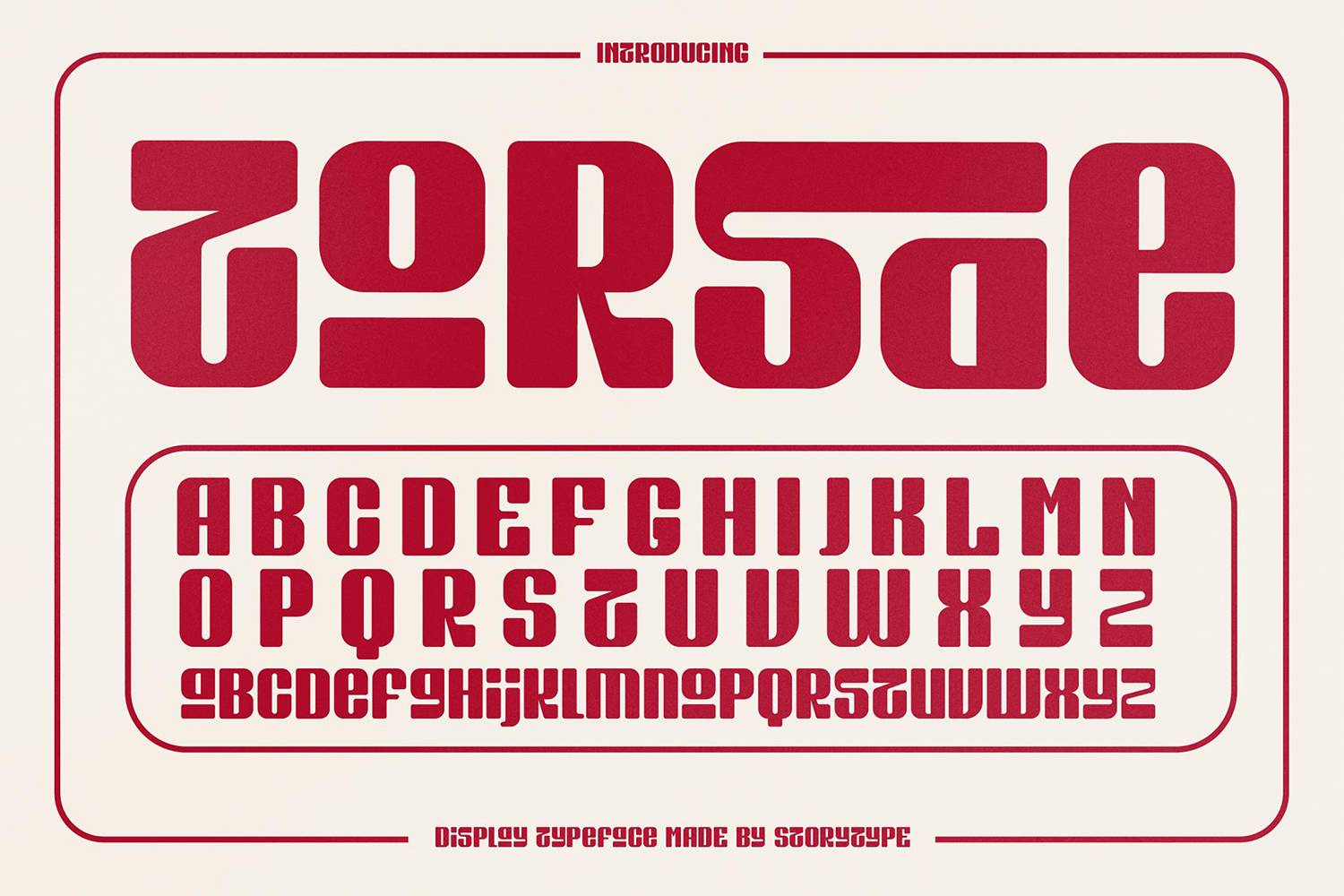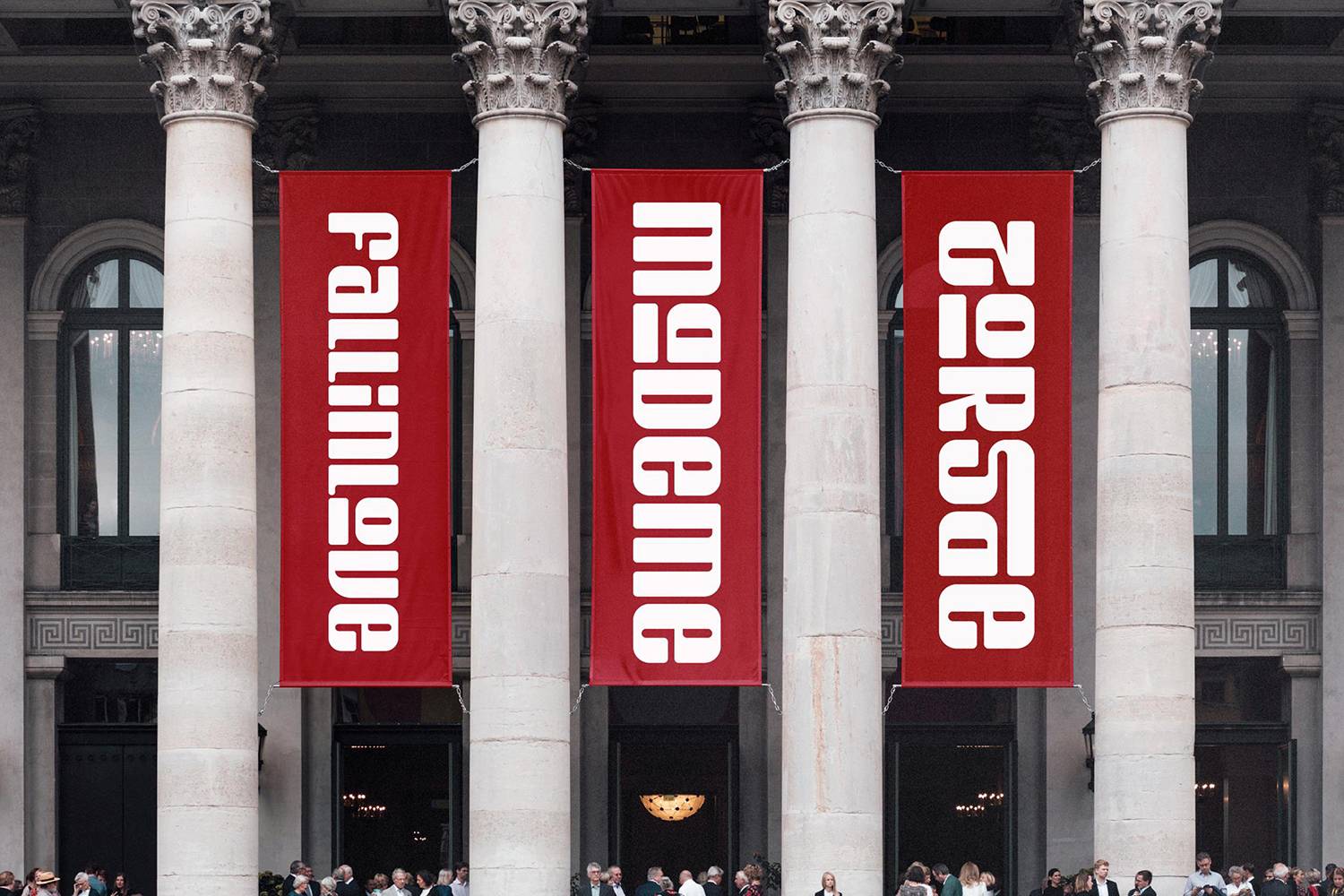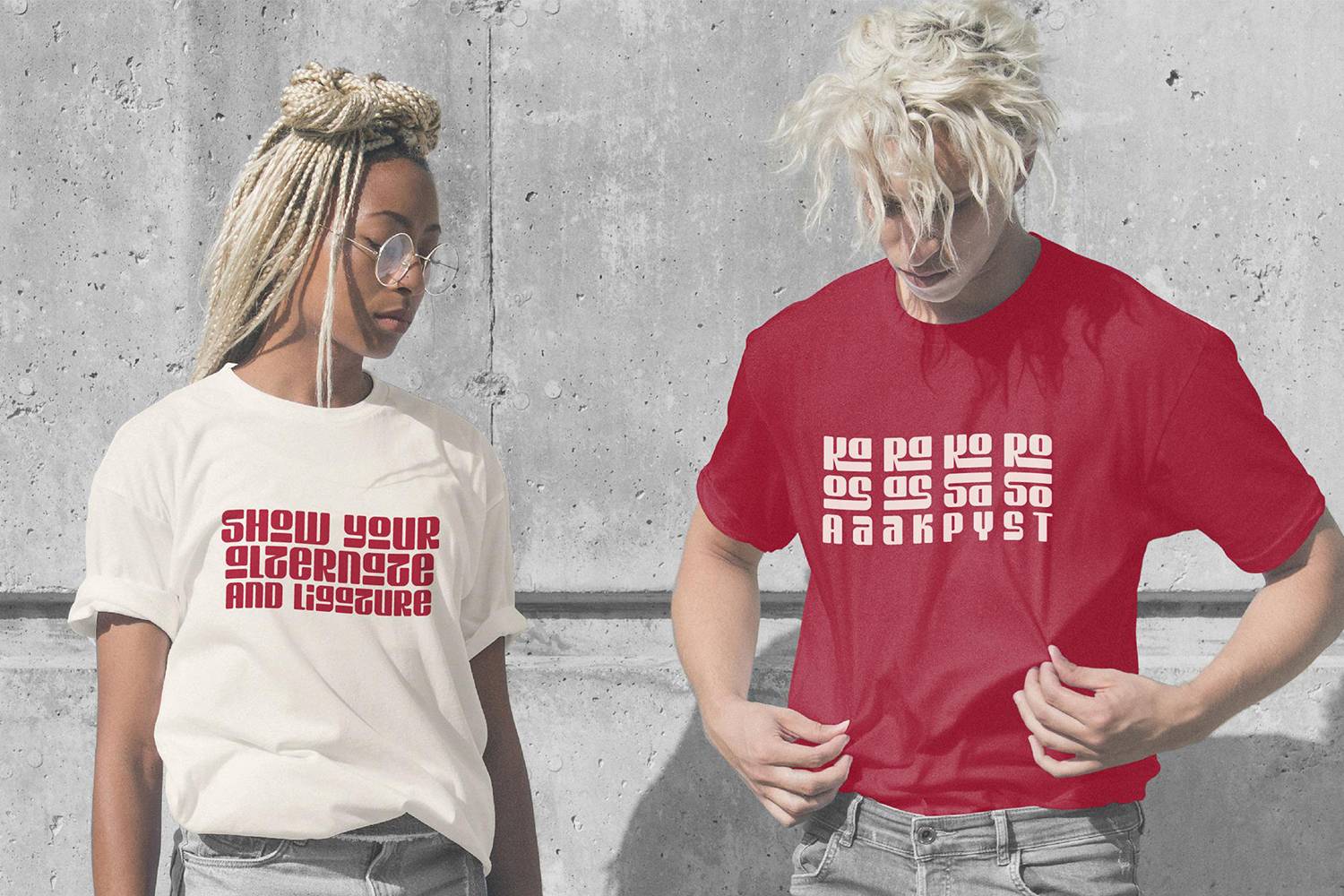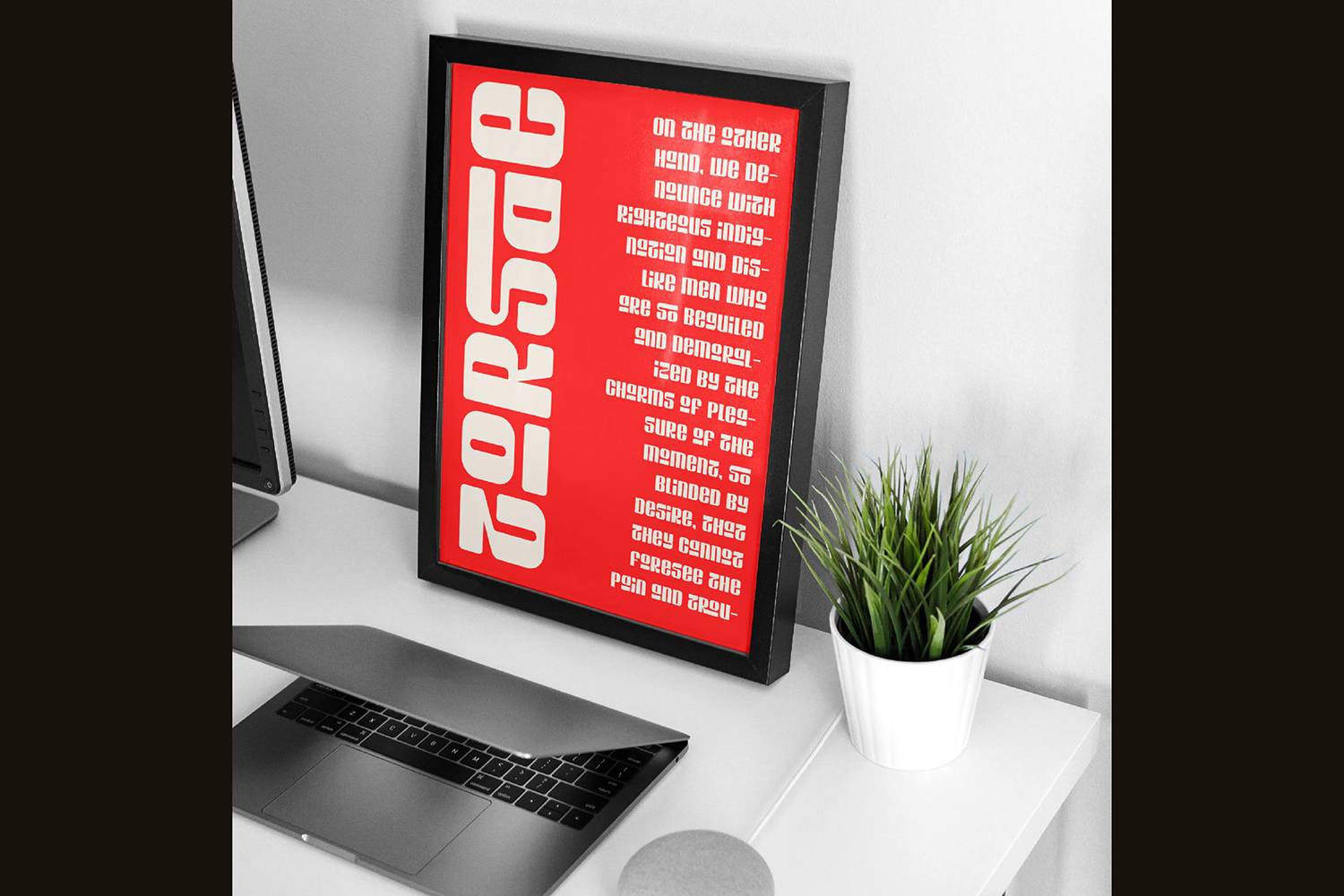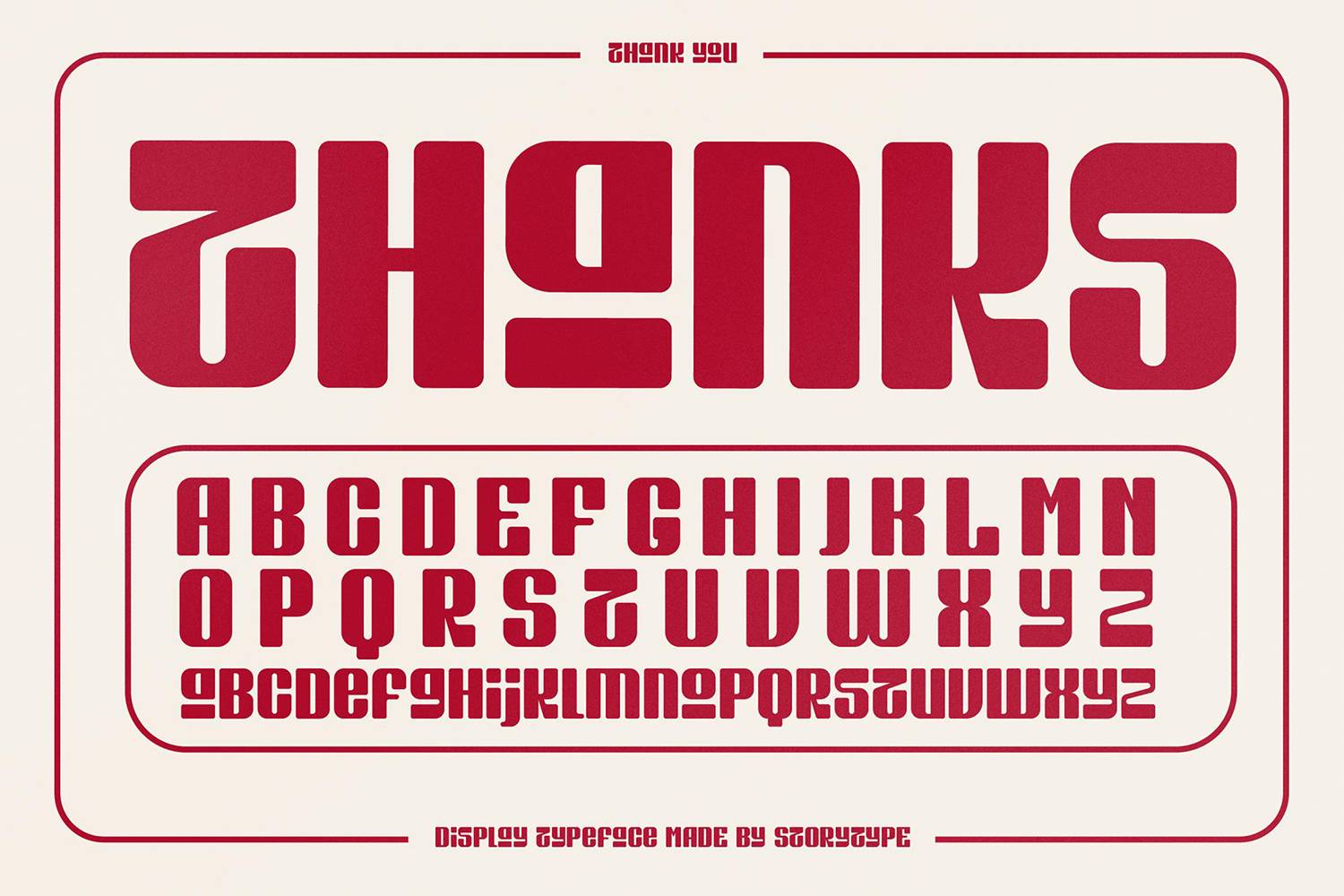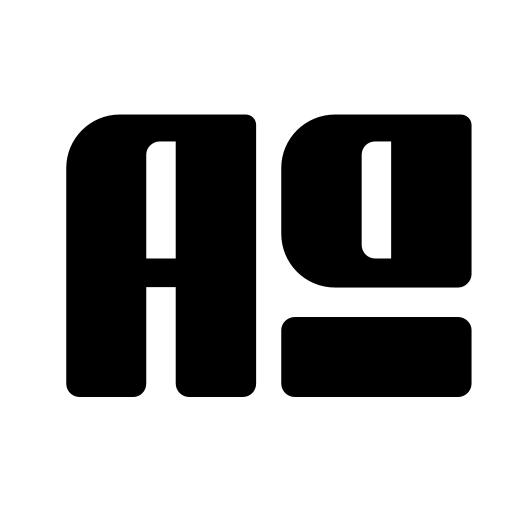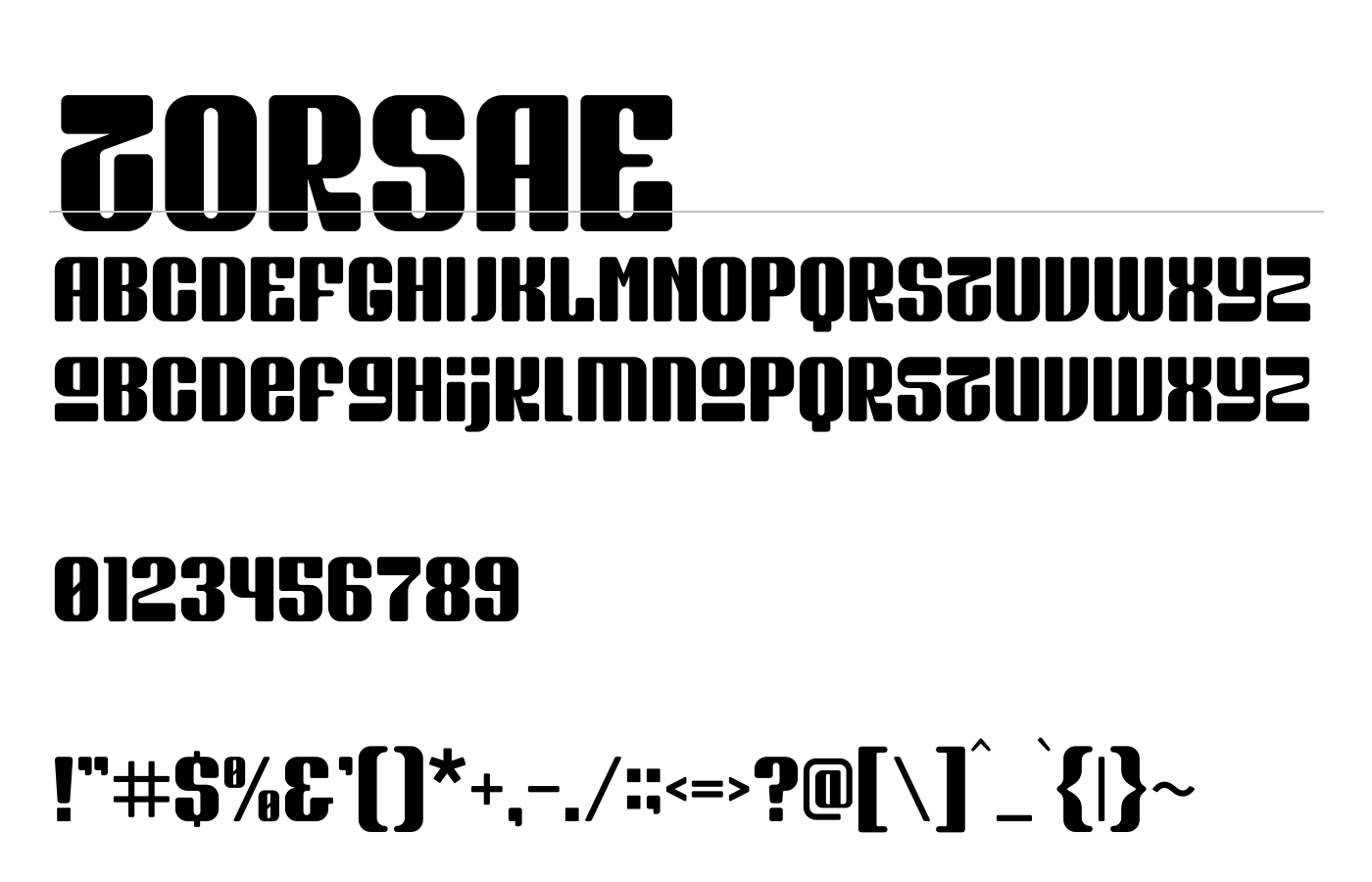
Torsae is a bold, condensed sans serif font with a strong geometric structure and high stroke contrast, giving it a modern yet slightly vintage feel. Its blocky, rounded letterforms with unique details like the curved Q tail and stylized S create a distinctive, eye-catching look perfect for impactful headlines, logos, and branding that aim to stand out with a playful but confident personality. This font works well in projects that want to combine a retro-inspired style with contemporary boldness.
Torsae Font
About Torsae Font